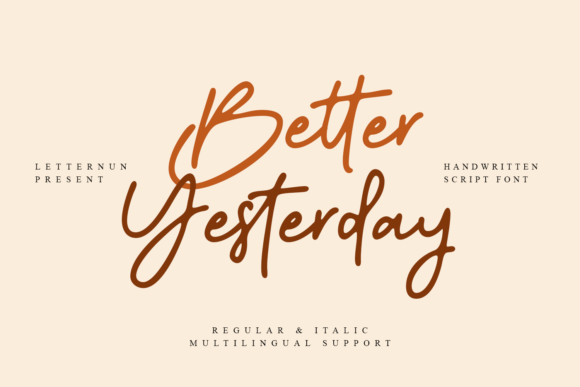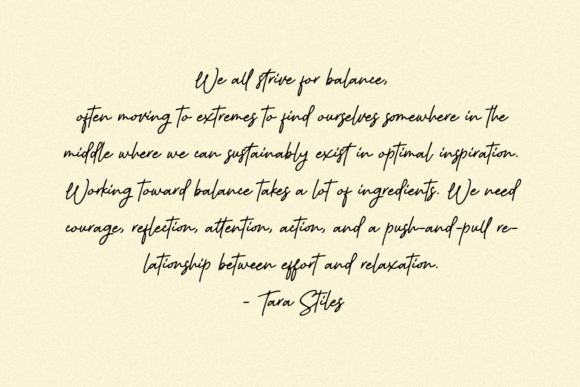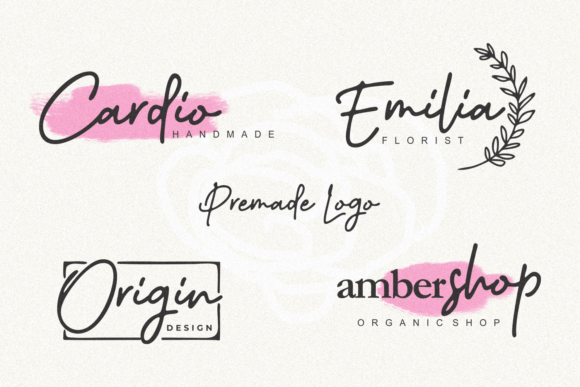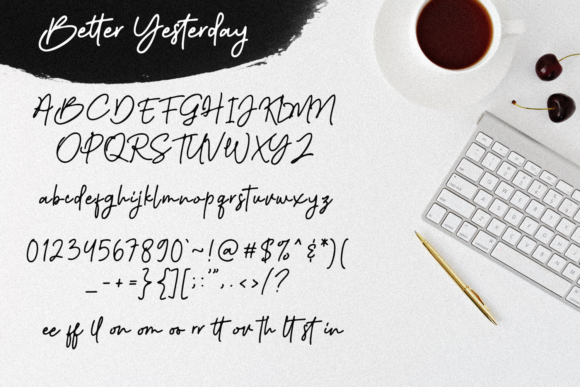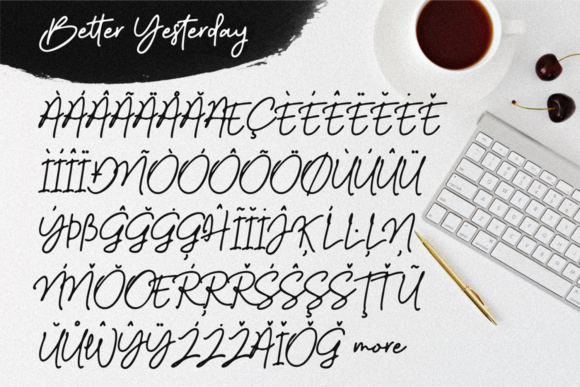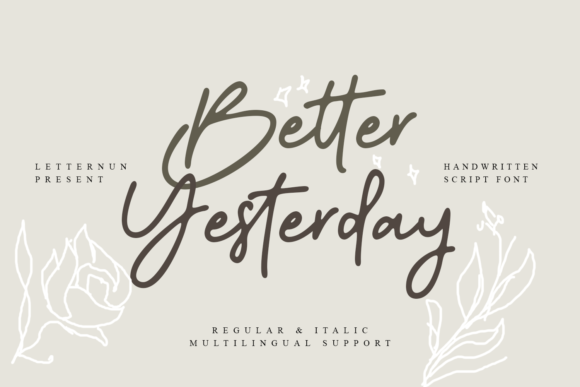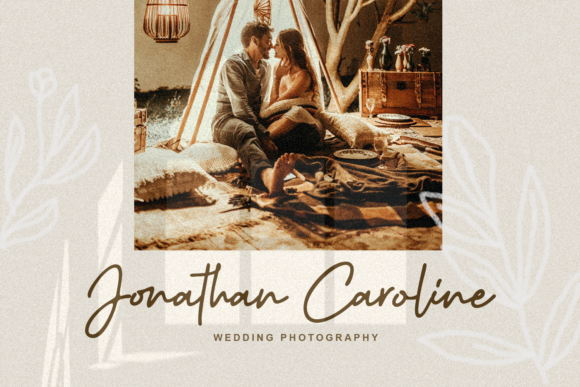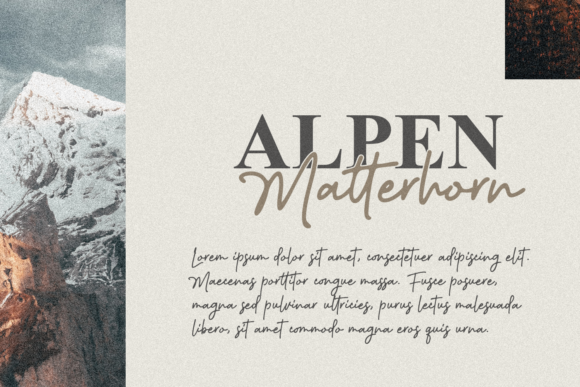
Better Yesterday Font
About Better Yesterday Font
Better Yesterday is a dainty and unique script font. Add this romantic and lovely looking font to each of your love letters, wedding invitations or favorite design ideas, and you will be astounded by the outcome.